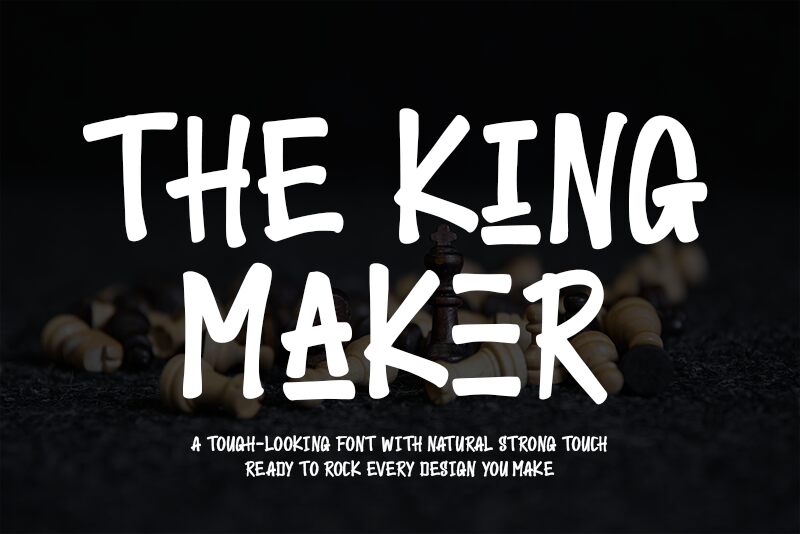
"The King Maker" is a captivating brush-style font, crafted with a bold, confident stroke that commands attention. Designed by the talented team at Letterara, this font exudes a regal presence, with its sweeping lines and dynamic curves evoking the grandeur of a royal signature.
Its exaggerated width and weighty strokes lend it a sense of power and authority, making it an ideal choice for headline text, editorial designs, or branding applications that require a powerful, memorable aesthetic. Whether used for titling, logotypes, or attention-grabbing display text, "The King Maker" stands out with its unique character, blending the elegance of calligraphy with a modern, impactful sensibility.
This font is a versatile tool for designers seeking to make a bold, indelible impression.